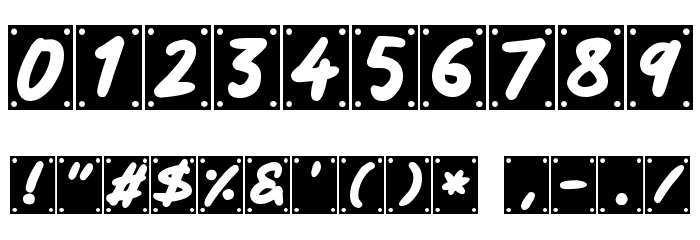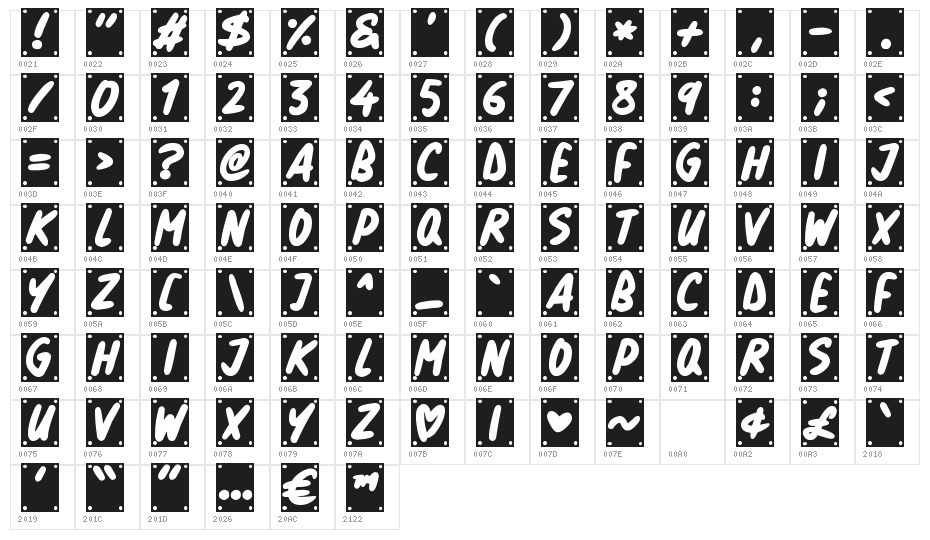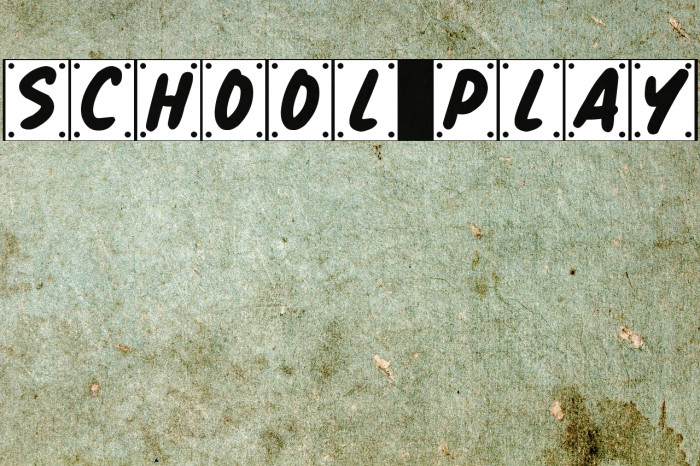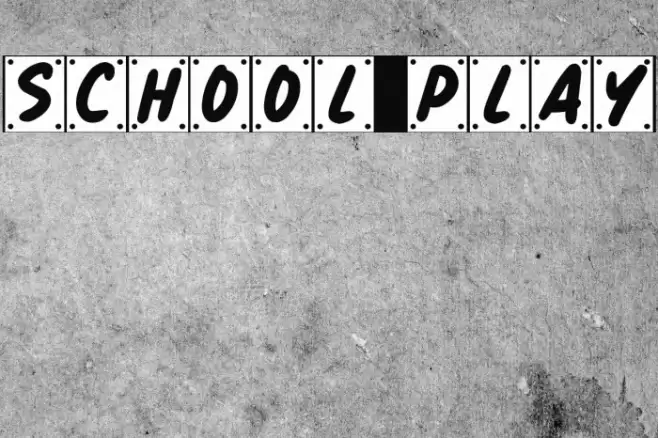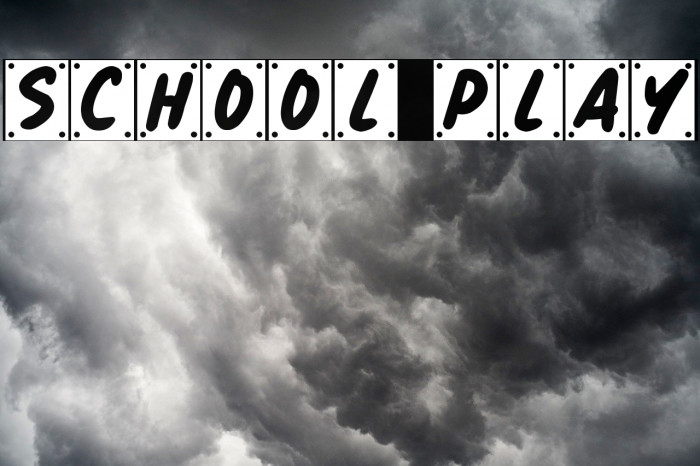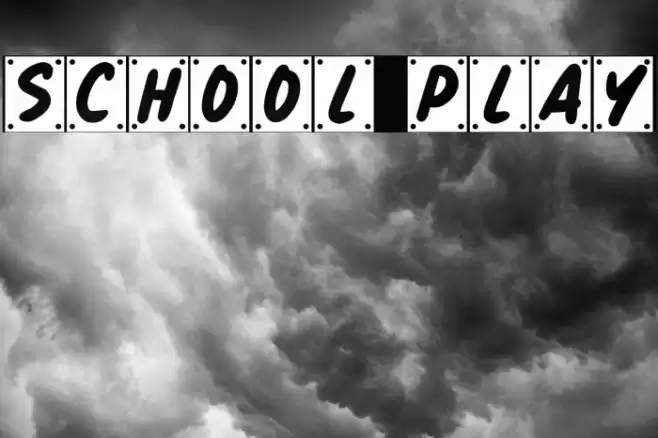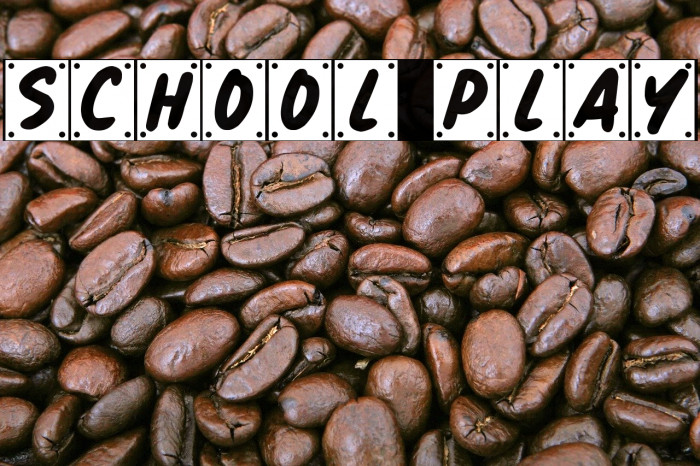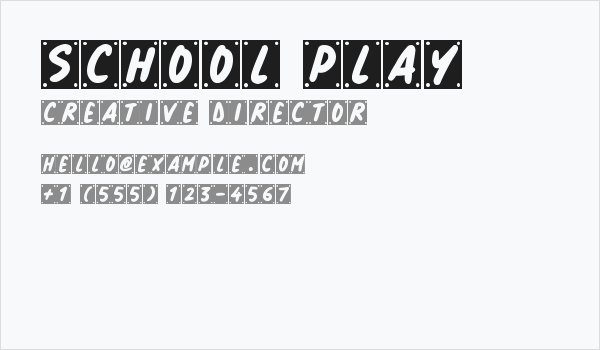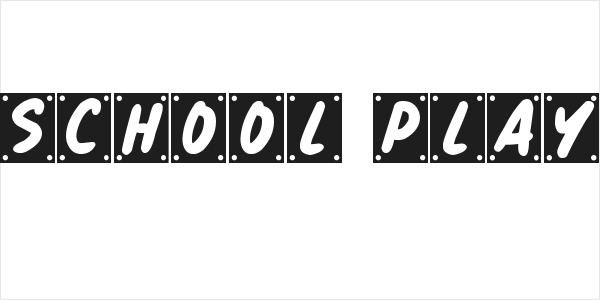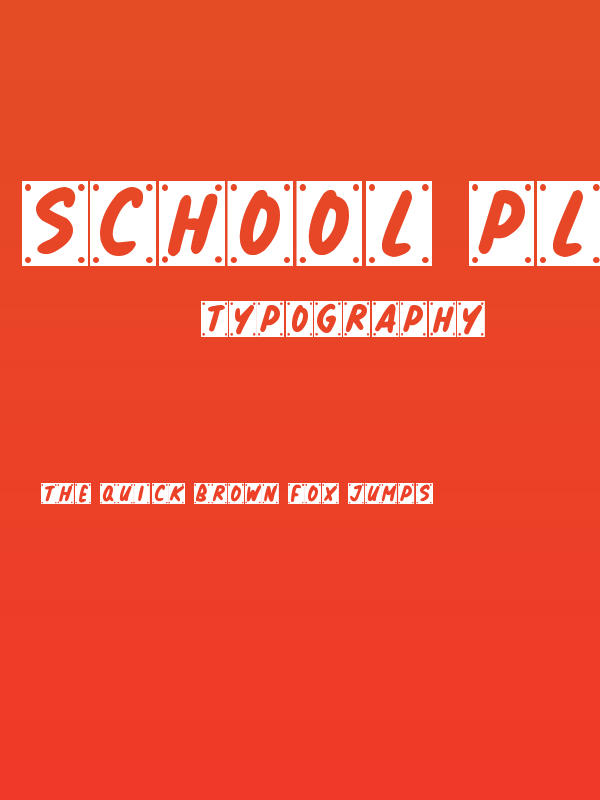
School Play Font
School Play Description
This playful and energetic font features a handwritten style with a casual and friendly appearance. The letters are slightly slanted, giving a dynamic and lively feel. Each character is enclosed in a rectangular frame with rounded corners, adding a unique and whimsical touch. The strokes are smooth and consistent, with a moderate thickness that ensures readability while maintaining a fun aesthetic. This font is perfect for projects that require a personal and approachable vibe, such as children's books, school projects, or playful branding.
| Proposed Projects | Ideal for children's books, school projects, playful branding, and creative posters. |